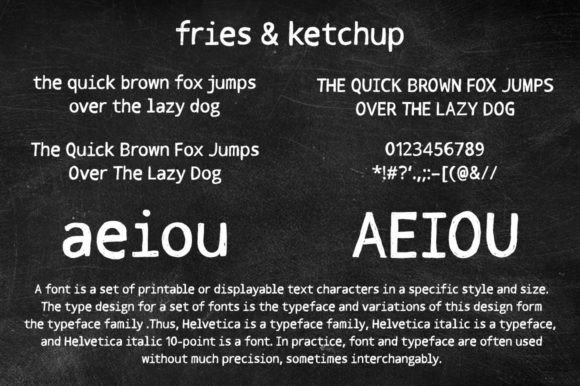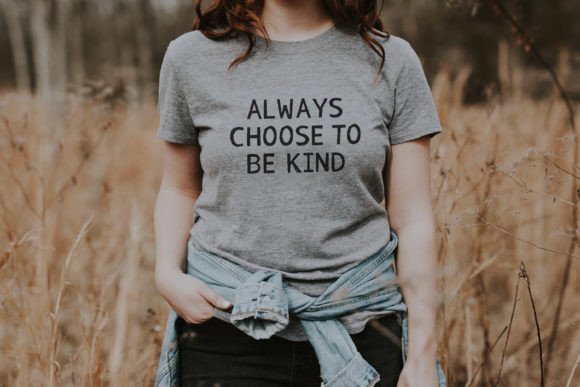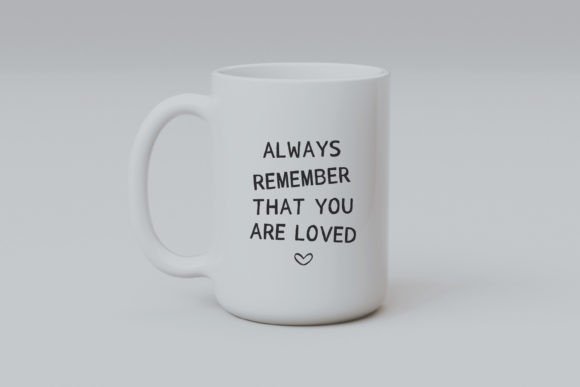
Fries and Ketchup Font: The Perfect Imperfection for Your Design Projects
Are you tired of using the same old perfect and polished fonts in your design projects? Do you want to add a touch of imperfection and personality to your creations? Look no further than the Fries and Ketchup Font, a hand-drawn sans serif font with a delightfully imperfect style.
A Unique and Playful Font
The Fries and Ketchup Font is a one-of-a-kind font that is serious but not too much. Its hand-drawn, sans serif design gives it a friendly and approachable feel, making it perfect for a wide range of design projects, from social media posts and greeting cards to t-shirts, mugs, stickers, and more.
Imperfectly Perfect
The Fries and Ketchup Font’s imperfect style is what sets it apart from other fonts. Its characters are hand-drawn, giving them a unique and slightly rough feel that is both charming and engaging. This font is perfect for designers and crafters who want to add a touch of personality to their work.
Comprehensive Character Set
The Fries and Ketchup Font includes a comprehensive character set, featuring all uppercase and lowercase characters, numbers, and punctuation. This means you can use it for a wide range of design projects, from simple quotes and phrases to longer texts and paragraphs.
With the Fries and Ketchup Font, the design possibilities are endless. Use it to create:
- Social media posts that stand out from the crowd
- Greeting cards that are both fun and heartfelt
- T-shirts and other apparel that make a statement
- Mugs and other ceramics that are both functional and decorative
- Stickers and other promotional materials that grab attention
- Quotes and posters that inspire and motivate
- Totes and other bags that are both practical and stylish
Why Choose the Fries and Ketchup Font?
There are many reasons why the Fries and Ketchup Font is the perfect choice for your design projects. Here are just a few:
- Unique and playful design
- Imperfect style adds personality and charm
- Comprehensive character set
- Endless design possibilities
- Perfect for a wide range of design projects
Get Creative with Fries and Ketchup Font
If you’re looking for a font that will add a touch of personality and imperfection to your design projects, look no further than the Fries and Ketchup Font. With its unique and playful design, comprehensive character set, and endless design possibilities, this font is perfect for designers and crafters who want to create something truly special.
In conclusion, the Fries and Ketchup Font is a hand-drawn sans serif font with a delightfully imperfect style that is perfect for a wide range of design projects. Its unique and playful design, comprehensive character set, and endless design possibilities make it the perfect choice for designers and crafters who want to add a touch of personality and charm to their work.